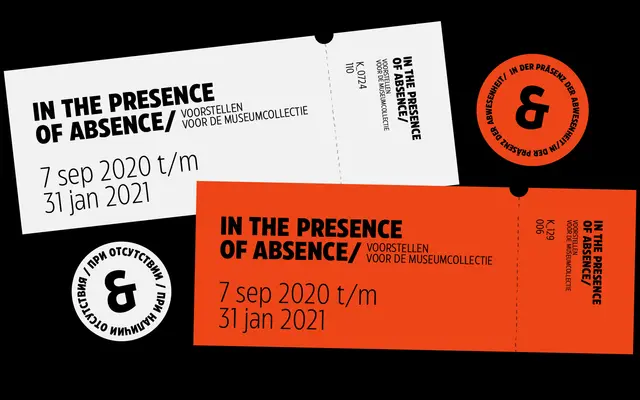
Eastman
Zetafonts · Francesco Canovaro, Andrea Tartarelli, Cosimo Lorenzo Pancini, Solenn Bordeau · 2020
A large geometric sans family from Zetafonts spanning four widths, ten weights, and 176 styles, with Bauhaus-inflected construction and extensive alternate character sets.
Designed by Francesco Canovaro and Andrea Tartarelli in 2020, Eastman pairs monolinear strokes and a tall x-height with a weight range running from Thin to Heavy across Roman, Grotesque, Condensed and Compressed widths. Each width ships with a standard and an Alt cut, the latter pre-loading unusual alternate letterforms suited to display and logo work without needing to dig through the glyphs palette. Variable font versions covering weight, width and italic axes are available in the full package, and script coverage extends to Latin, Cyrillic and Greek across 219 languages.
Monolinear strokes, geometric construction influenced by Bauhaus ideals, with a nod to 19th-century grotesque proportions across four widths including a humanist-proportioned Grotesque subfamiliy.